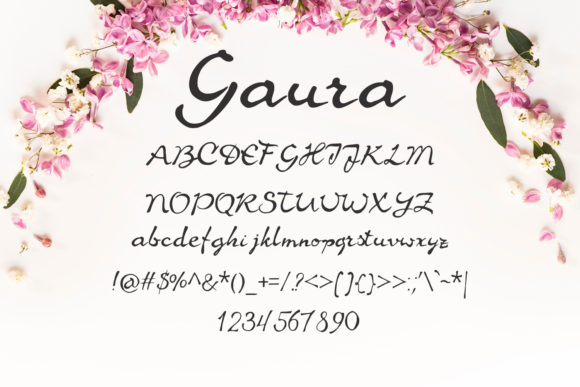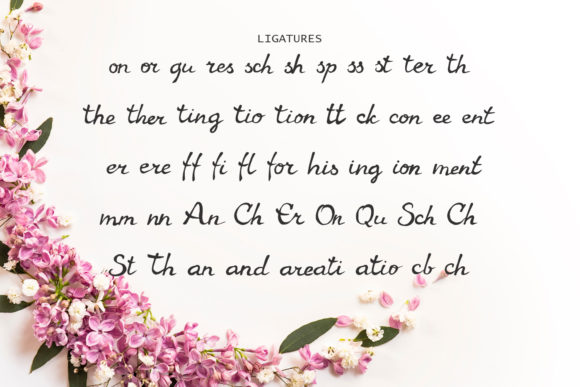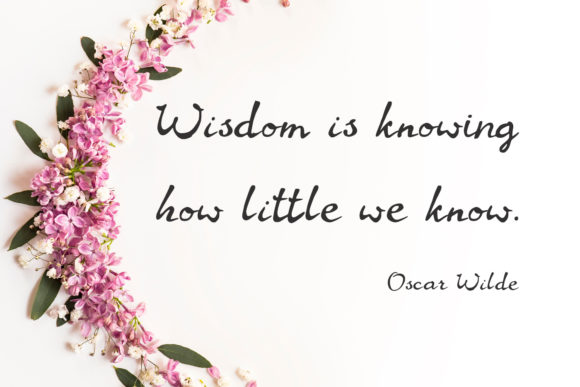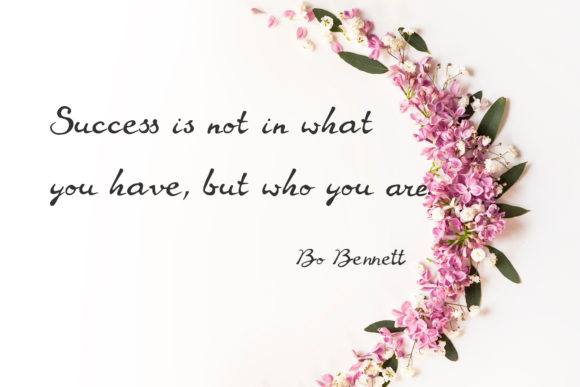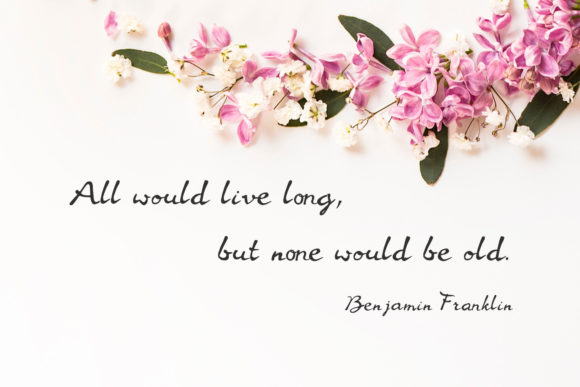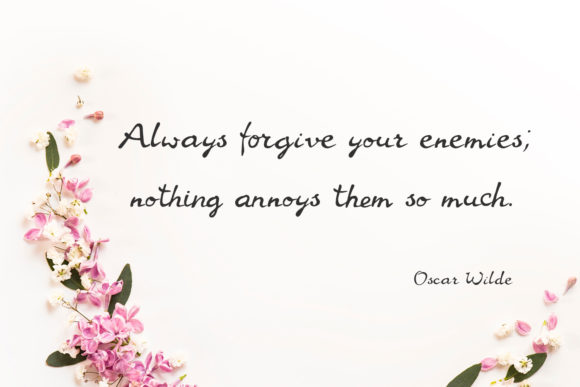
Introducing Gaura Font: The Sweet and Dainty Handwritten Font for Personalized Designs
Are you a designer or crafter looking for a font that adds a touch of elegance and personality to your designs? Look no further than Gaura Font, a sweet and dainty handwritten font that’s perfect for a variety of projects. From wedding invitations and thank you cards to logos and greeting cards, Gaura Font is the ideal choice for anyone seeking a unique and sophisticated look.
What is Gaura Font?
Gaura Font is a beautiful, handwritten font that’s been carefully crafted to provide a delicate and refined aesthetic. Its sweet and dainty appearance makes it perfect for designs that require a personal touch, such as wedding stationery, baby shower invitations, and other celebratory materials. The font’s elegant and cursive style ensures that your designs will stand out from the crowd and leave a lasting impression.
Key Features of Gaura Font
- Handwritten style: Gaura Font boasts a genuine, handwritten look that’s perfect for adding a personal touch to your designs.
- Elegant and cursive: The font’s elegant and cursive style makes it ideal for designs that require a sophisticated and refined look.
- Versatile: Gaura Font can be used for a wide range of projects, from wedding invitations and greeting cards to logos and other marketing materials.
- Easy to read: Despite its delicate appearance, Gaura Font is easy to read and understand, making it perfect for designs that require a clear and concise message.
Uses for Gaura Font
Gaura Font is an incredibly versatile font that can be used for a wide range of projects, including:
- Wedding invitations: Add a touch of elegance and sophistication to your wedding stationery with Gaura Font.
- Thank you cards: Express your gratitude in style with Gaura Font’s sweet and dainty appearance.
- Greeting cards: Create beautiful and personalized greeting cards for any occasion with Gaura Font.
- Logos: Use Gaura Font to create a unique and memorable logo for your business or brand.
- Crafting projects: Gaura Font is perfect for crafters who want to add a personal touch to their DIY projects, such as scrapbooking, journaling, and more.
Why Choose Gaura Font?
With so many fonts available, why choose Gaura Font? Here are just a few reasons why Gaura Font stands out from the crowd:
- Unique and sophisticated: Gaura Font offers a unique and sophisticated look that’s sure to impress.
- High-quality: Gaura Font is a high-quality font that’s been carefully crafted to provide a beautiful and consistent appearance.
Gaura Font is a sweet and dainty handwritten font that’s perfect for designers and crafters who want to add a touch of elegance and personality to their designs. With its elegant and cursive style, Gaura Font is ideal for a wide range of projects, from wedding invitations and greeting cards to logos and crafting projects. Whether you’re a seasoned designer or a DIY crafter, Gaura Font is sure to become a favorite in your font collection.